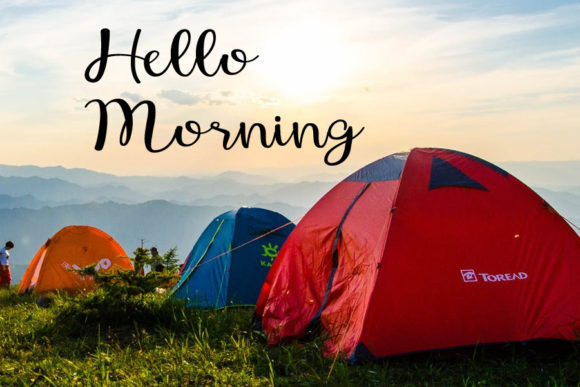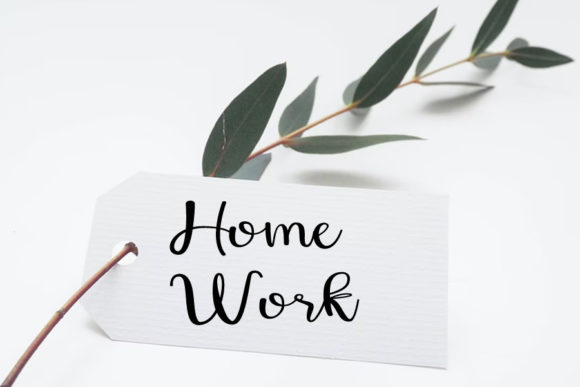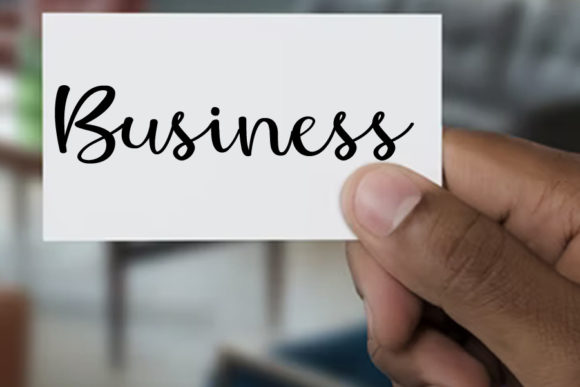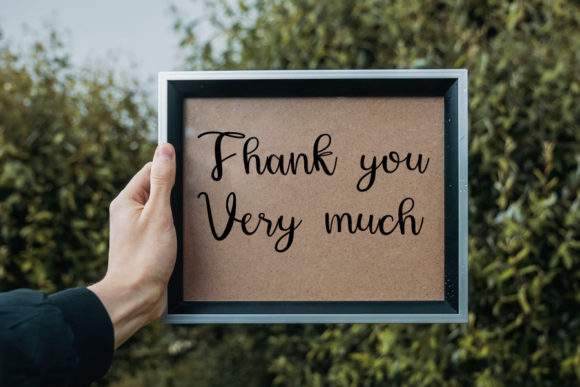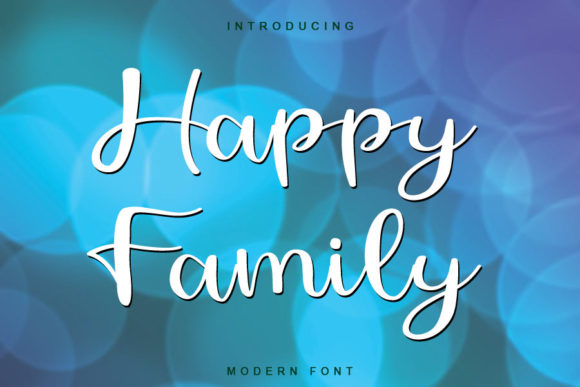
Introducing Happy Family Font: The Chic and Stylish Script Font for Your Creative Projects
Are you a designer, crafter, or creative enthusiast looking for a font that can elevate your projects to the next level? Look no further than the Happy Family Font, a chic and stylish script font that’s perfect for a wide range of creative endeavors. With its distinct and fashionable look, Happy Family is the ideal choice for anyone looking to add a touch of elegance and sophistication to their designs.
What Makes Happy Family Font So Special?
Happy Family Font is a unique and original script font that’s designed to make your creations stand out from the crowd. Its stylish and elegant look is perfect for a variety of projects, from letterheads and titles to stationery and more. Whether you’re a professional designer or a crafty hobbyist, Happy Family Font is sure to inspire your creativity and help you produce stunning results.
Key Features of Happy Family Font
- Distinct and Fashionable Look: Happy Family Font boasts a unique and stylish design that’s sure to turn heads. Its elegant and sophisticated look makes it perfect for a wide range of creative projects.
- Versatile and Adaptable: Whether you’re designing a logo, creating a letterhead, or crafting a stationery set, Happy Family Font is the perfect choice. Its versatility and adaptability make it suitable for a wide range of applications.
- Easy to Read and Write: Despite its stylish and cursive design, Happy Family Font is easy to read and write. This makes it perfect for body text, headings, and titles.
- Compatible with a Wide Range of Devices: Happy Family Font is compatible with a wide range of devices and software, making it easy to use and integrate into your creative projects.
Use Cases for Happy Family Font
Happy Family Font is perfect for a wide range of creative projects, including:
- Letterheads and Stationery: Add a touch of elegance and sophistication to your letterheads and stationery with Happy Family Font.
- Titles and Headings: Use Happy Family Font to create stunning titles and headings for your blog posts, articles, and website content.
- Logos and Branding: Create a unique and memorable logo for your business or brand with Happy Family Font.
- Invitations and Announcements: Use Happy Family Font to create beautiful and elegant invitations and announcements for special occasions.
Tips for Using Happy Family Font
Here are some tips for using Happy Family Font in your creative projects:
- Use it Sparingly: While Happy Family Font is a beautiful and elegant font, it’s best to use it sparingly to avoid overwhelming your design.
- Pair it with Other Fonts: Experiment with pairing Happy Family Font with other fonts to create a unique and visually appealing design.
- Adjust the Size and Style: Adjust the size and style of Happy Family Font to suit your design needs and create a cohesive look.
In conclusion, Happy Family Font is a chic and stylish script font that’s perfect for a wide range of creative projects. Its distinct and fashionable look, versatility, and adaptability make it an ideal choice for designers, crafters, and creative enthusiasts. Whether you’re looking to create a stunning letterhead, a beautiful invitation, or a memorable logo, Happy Family Font is sure to inspire your creativity and help you produce amazing results.